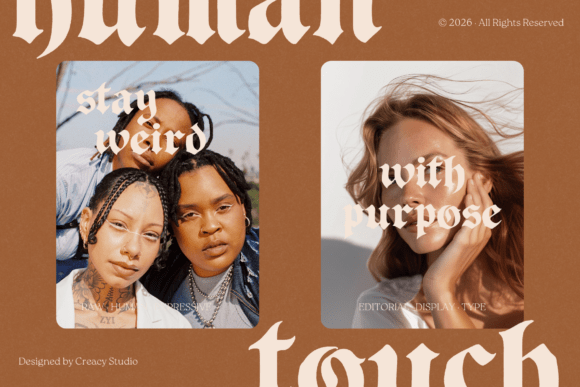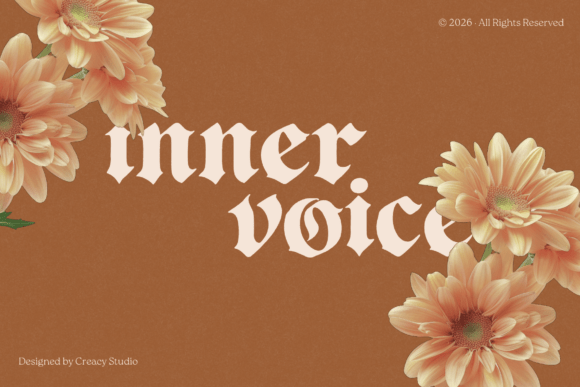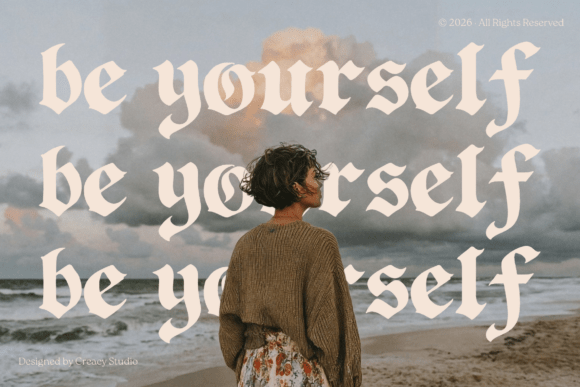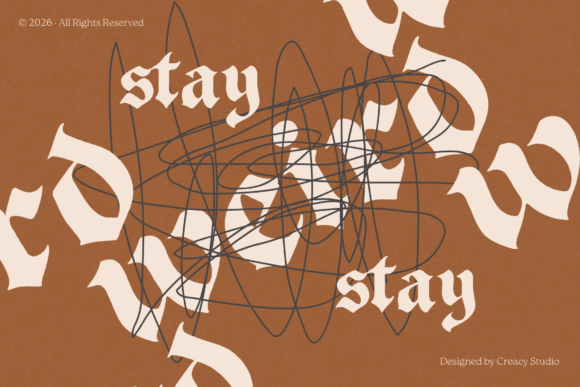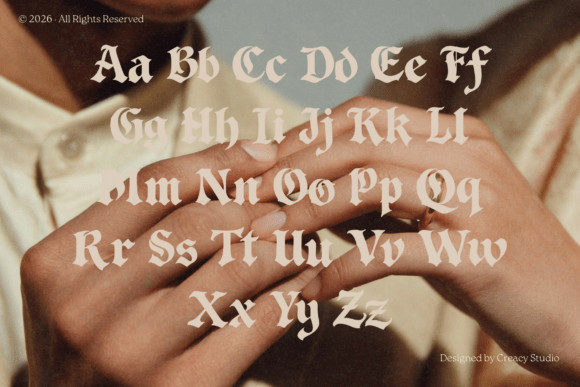
Introducing Crowveil Blackletter: The New Age Sophisticated Gothic Display Typeface
In the realm of typography, the art of blending classic elegance with modern sensibilities is a delicate balance. Crowveil Blackletter, a stunning new display typeface, achieves this harmony with remarkable finesse. By merging the timeless essence of traditional blackletter typography with a contemporary twist, Crowveil Blackletter offers a sophisticated and expressive font that redefines the boundaries of gothic typography.
The Evolution of Blackletter Typography
Blackletter typography, with its rich history dating back to the Middle Ages, has long been associated with grandeur, mystery, and elegance. Traditional blackletter fonts, characterized by their dramatic flourishes and intricate details, have been a staple in design for centuries. However, their rigid and ornate nature often limited their versatility in modern design applications.
Crowveil Blackletter challenges this conventional wisdom by introducing a fresh, organic warmth to the traditional blackletter aesthetic. This modern interpretation boasts a nuanced, expressive narrative that not only pays homage to its heritage but also resonates with contemporary design sensibilities.
Design Characteristics of Crowveil Blackletter
Crowveil Blackletter’s design is distinguished by several key characteristics that set it apart from traditional blackletter fonts:
• Gracefully Rounded Edges: Crowveil Blackletter’s rounded edges imbue the font with a sense of softness, making it more approachable and versatile for modern design applications.
• Generous Open Counters: The font’s open counters enhance readability, allowing for clear communication even at smaller font sizes.
• Discreet Stroke Modulation: The subtle variation in stroke widths adds a touch of sophistication and elegance, elevating the font’s overall aesthetic.
These design elements work in harmony to create a font that is not only visually stunning but also highly legible and adaptable. Whether used for titles, headings, or display text, Crowveil Blackletter commands attention while maintaining an air of refinement.
Applications and Use Cases
Crowveil Blackletter’s unique blend of classic and modern elements makes it an ideal choice for a wide range of design applications, including:
• Branding and Logos: The font’s distinctive character and elegance make it perfect for creating memorable brand identities.
• Advertising and Marketing: Crowveil Blackletter’s theatrical impact and expressiveness make it well-suited for attention-grabbing headlines and promotional materials.
• Packaging and Product Design: The font’s versatility and sophistication make it an excellent choice for product labels, packaging, and point-of-purchase displays.
• Digital Media: Crowveil Blackletter’s legibility and aesthetic appeal make it an excellent choice for digital platforms, including websites, social media, and mobile applications.
Why Choose Crowveil Blackletter?
In a world where typography plays a crucial role in communication and design, Crowveil Blackletter offers a compelling solution for designers seeking a unique and sophisticated display font. By combining the best of traditional blackletter typography with modern sensibilities, Crowveil Blackletter provides:
• Unconventional Elegance: A distinctive and refined aesthetic that sets it apart from more traditional fonts.
• Expressive Narrative: A nuanced and emotive quality that adds depth and character to any design.
• Versatility: A highly adaptable font suitable for a wide range of design applications and industries.
Whether you’re a designer, craftsperson, or simply someone who appreciates the art of typography, Crowveil Blackletter is an exceptional choice for those seeking to elevate their design with a touch of sophistication and elegance.
Crowveil Blackletter is a masterful blend of traditional and modern typography, offering a unique and sophisticated display font that redefines the boundaries of gothic typography. With its distinctive character, elegance, and versatility, Crowveil Blackletter is poised to become a go-to choice for designers seeking to create stunning, attention-grabbing designs that resonate with romantic expressiveness and modern sensibilities.